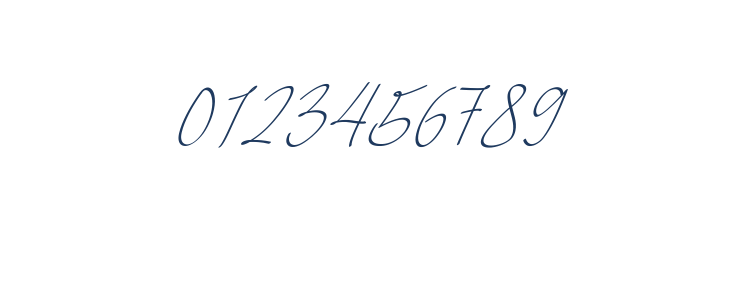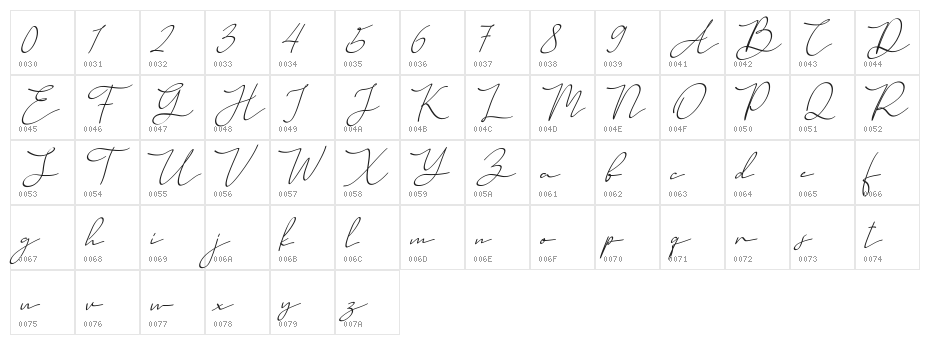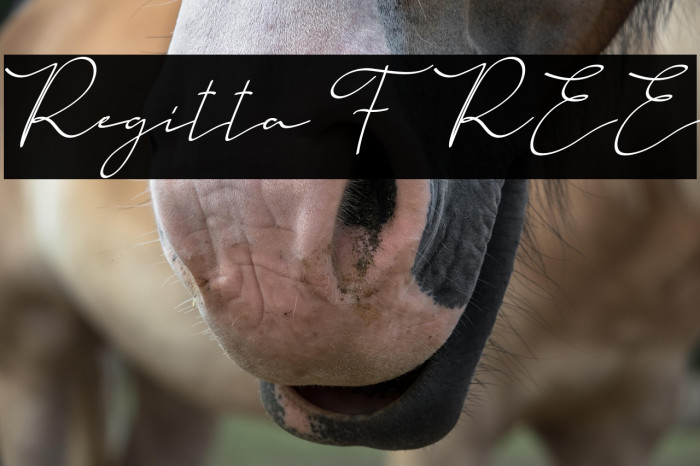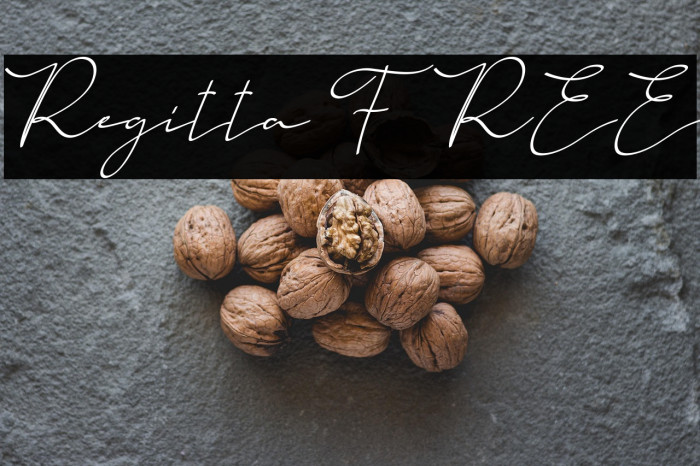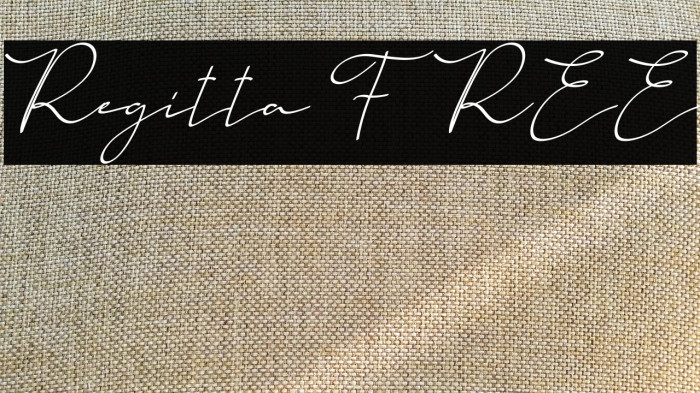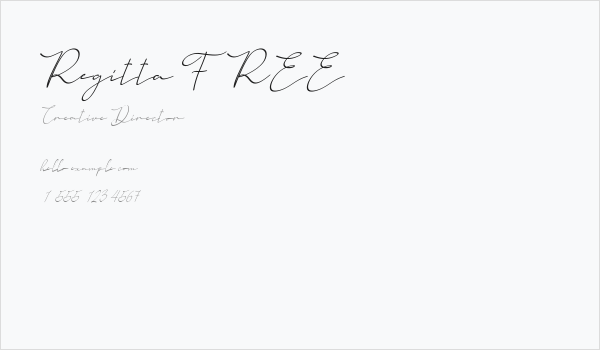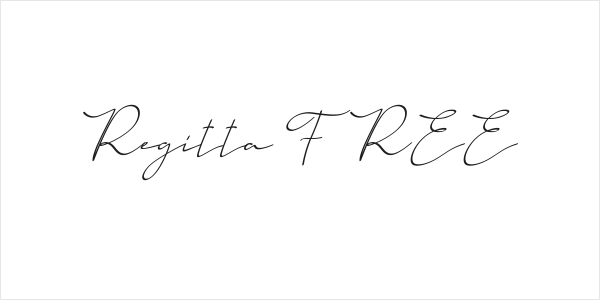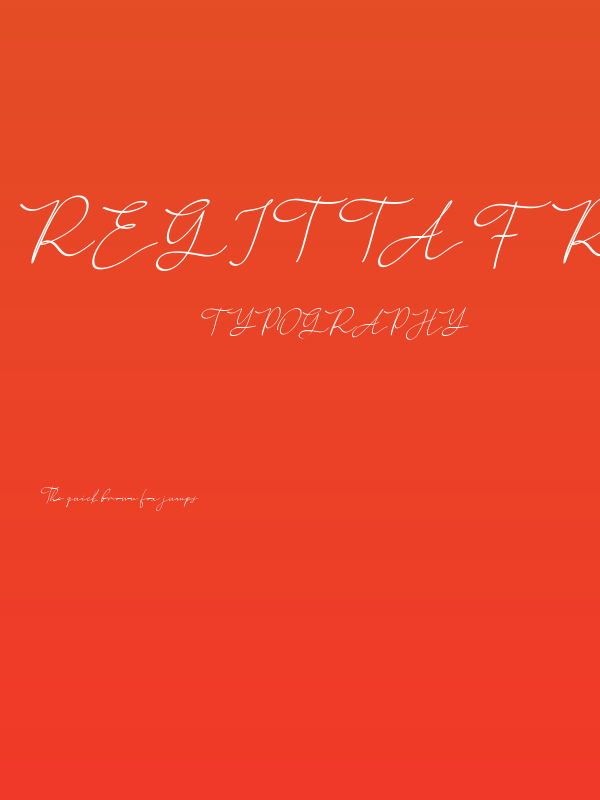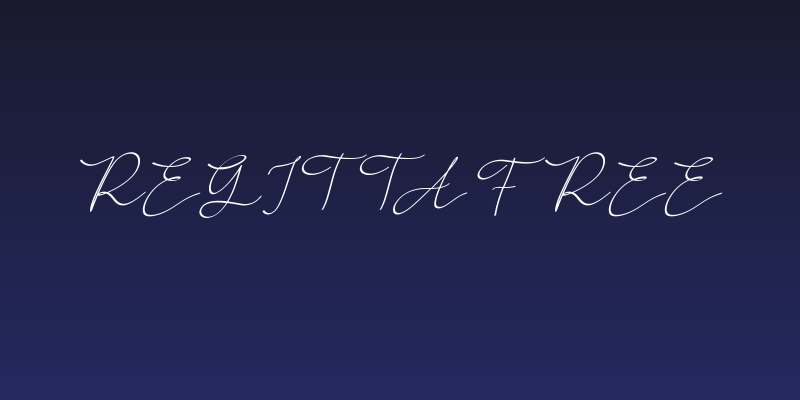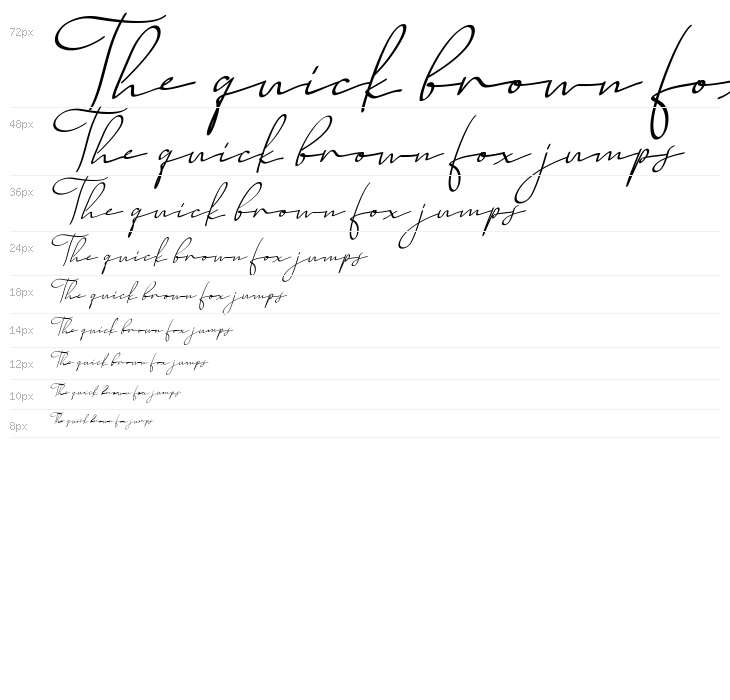
Regitta FREE Font
Regitta FREE Description
This elegant script font features flowing, cursive letterforms with a refined and sophisticated appearance. The uppercase letters are slightly more structured, while the lowercase letters exhibit a graceful fluidity, creating a harmonious balance. The numerals are consistent with the overall style, maintaining the same delicate curves. The special characters are seamlessly integrated, enhancing the font's versatility. This font's thin strokes and gentle curves give it a light and airy feel, making it ideal for projects that require a touch of elegance and class.